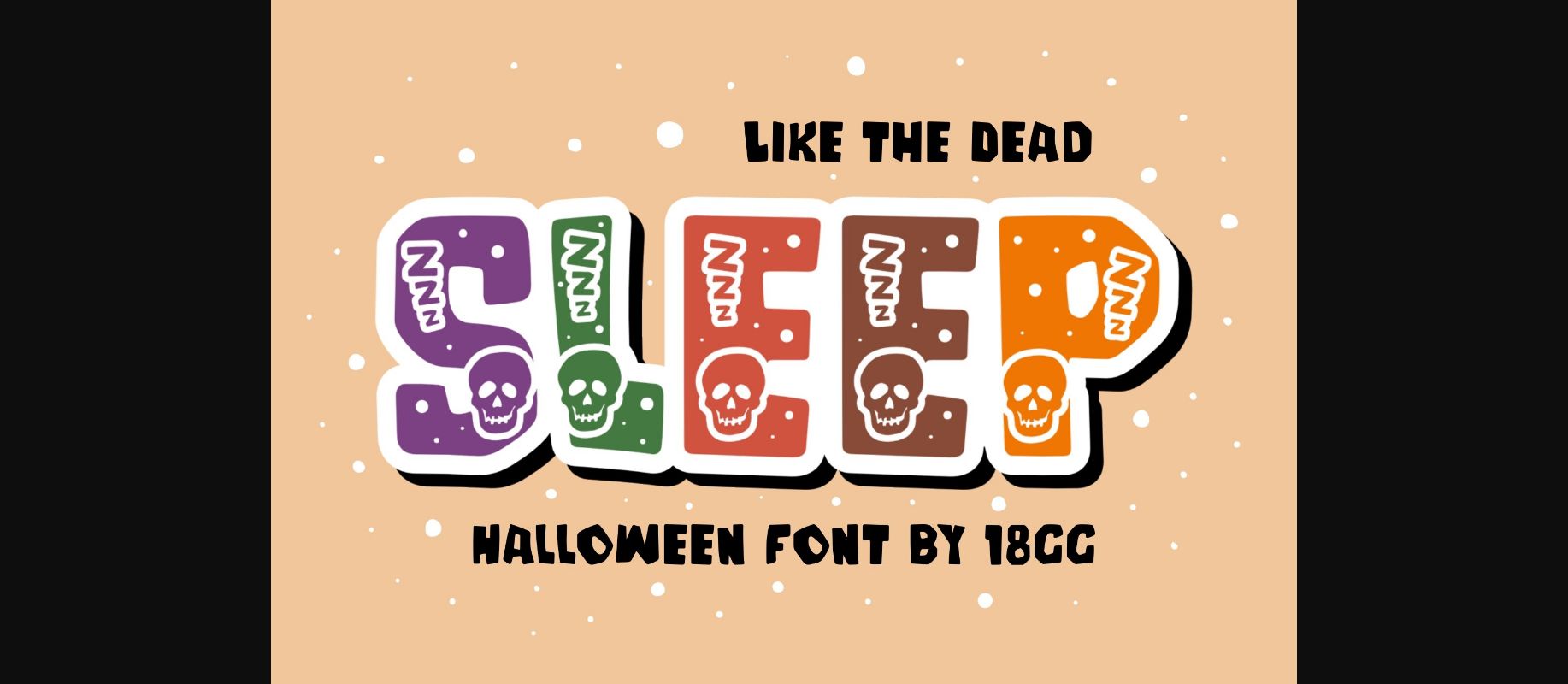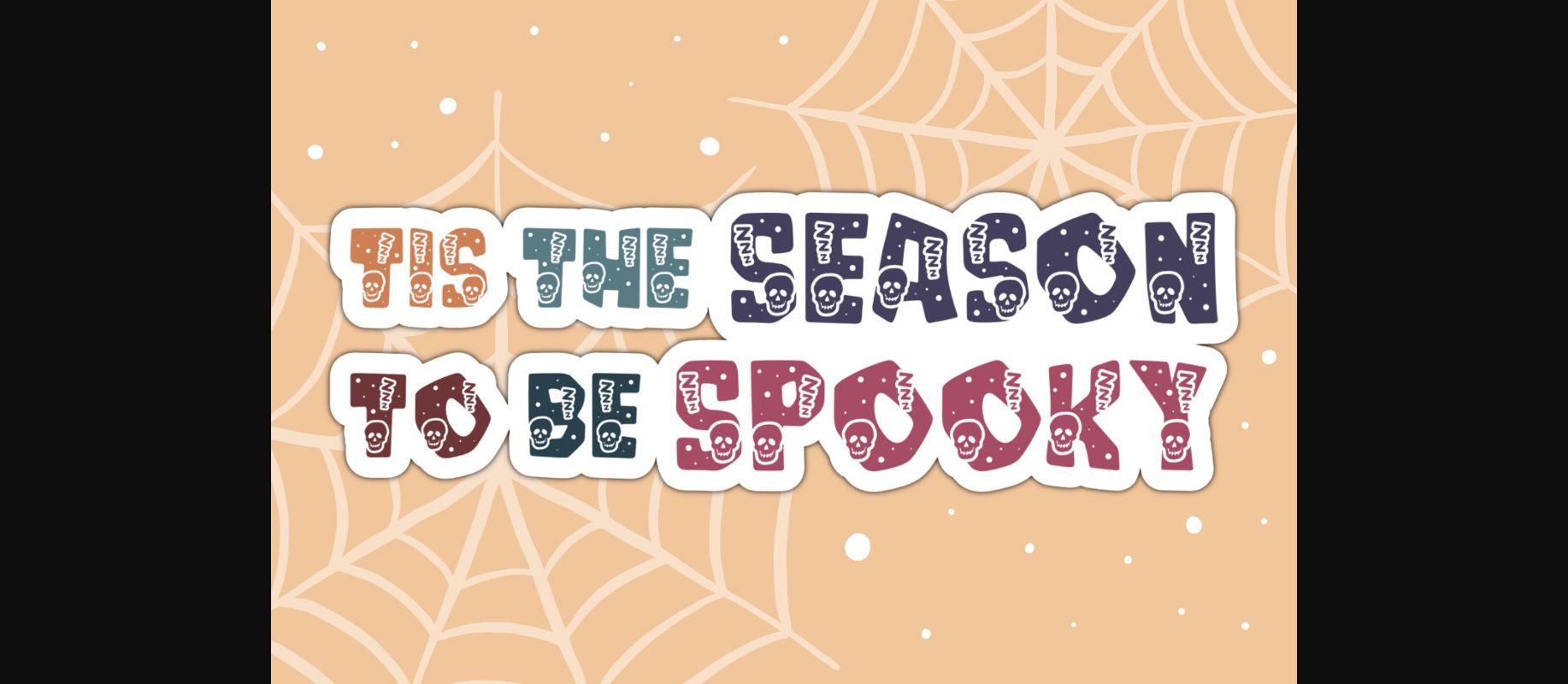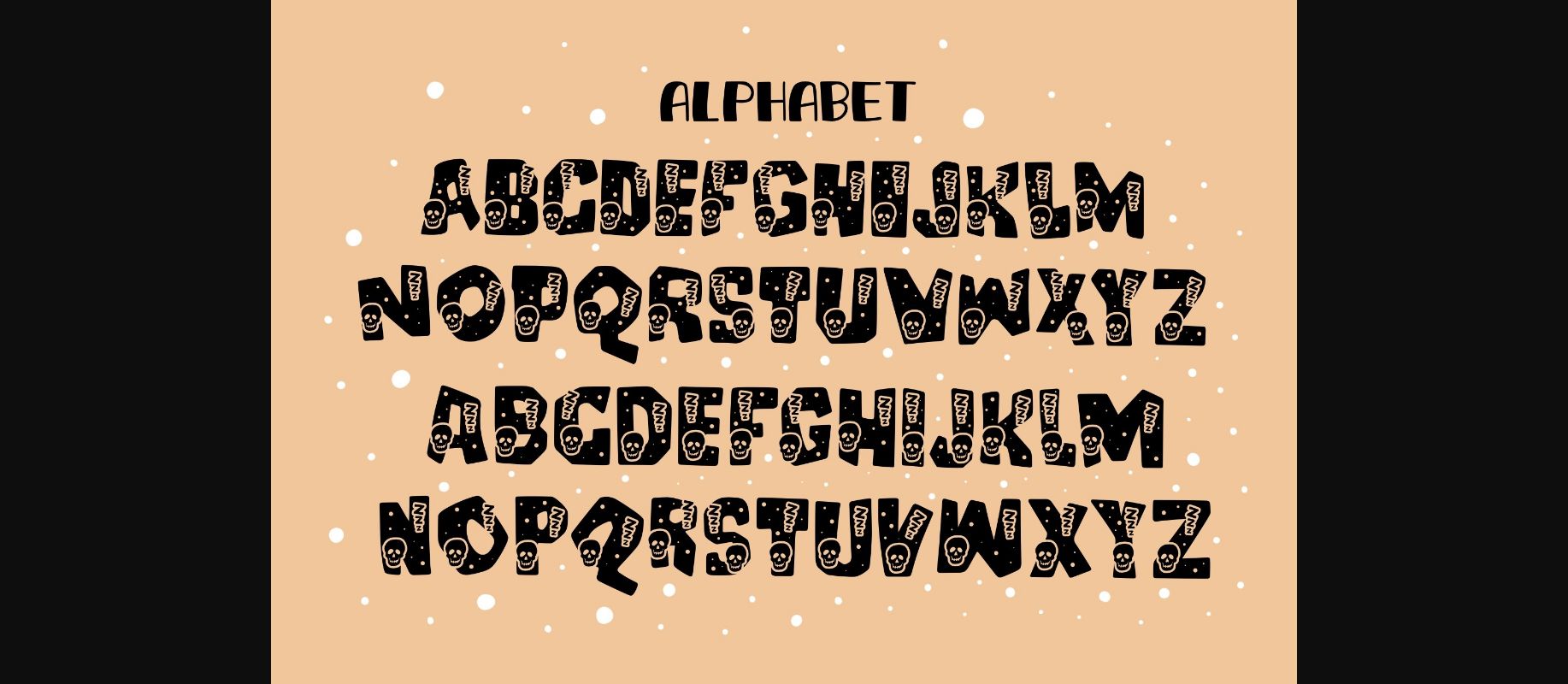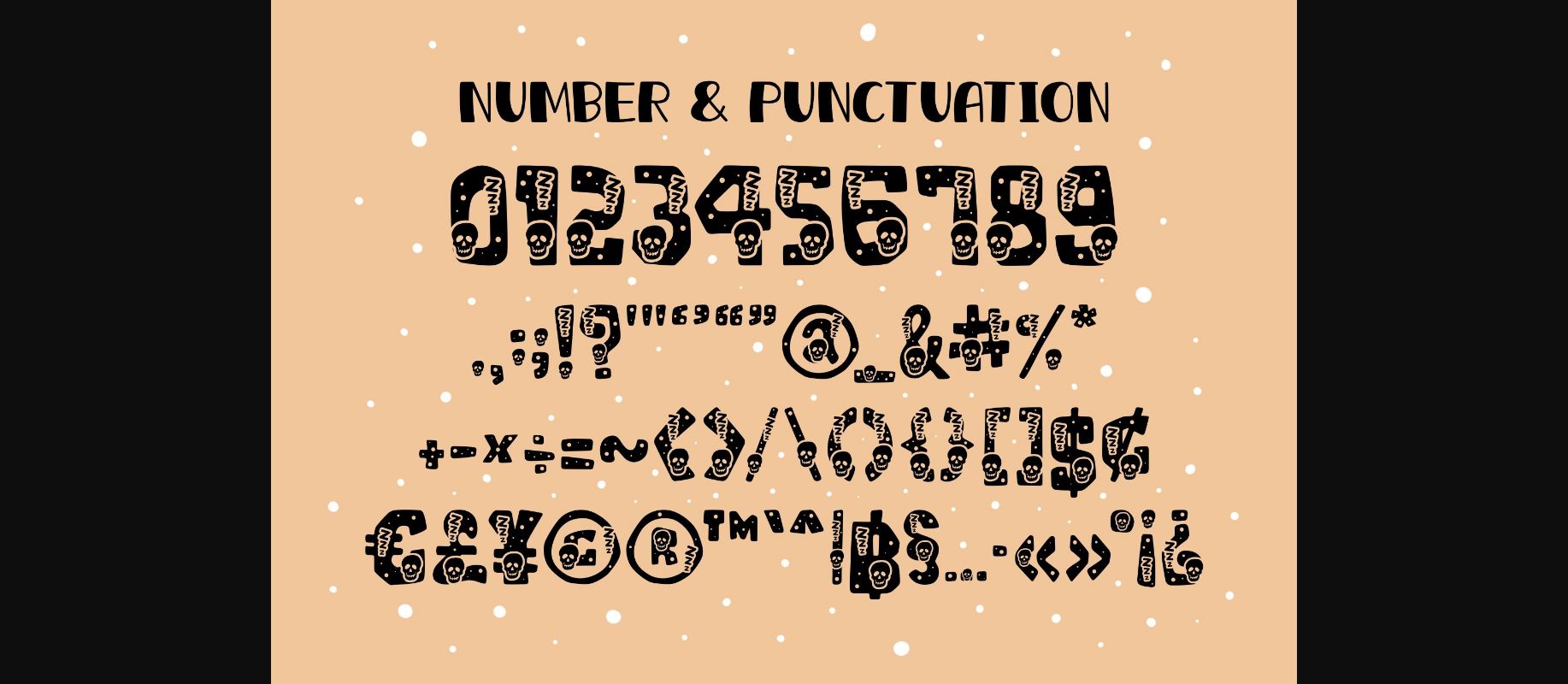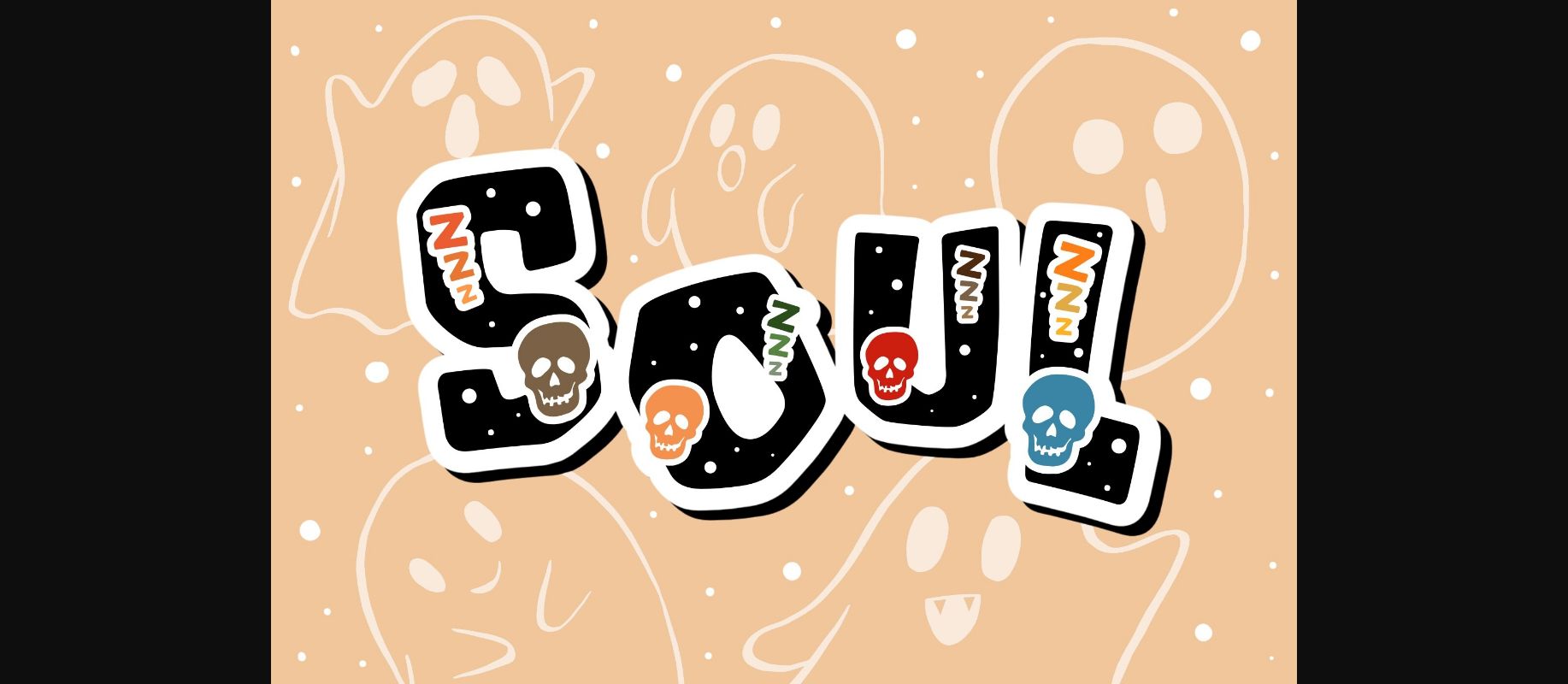
Sleep Like the Dead Font
About Sleep Like the Dead Font
Sleep Like the Dead is a funny halloween theme font. Whimsical and a little bit mysterious, this font is perfect for all your Halloween projects.